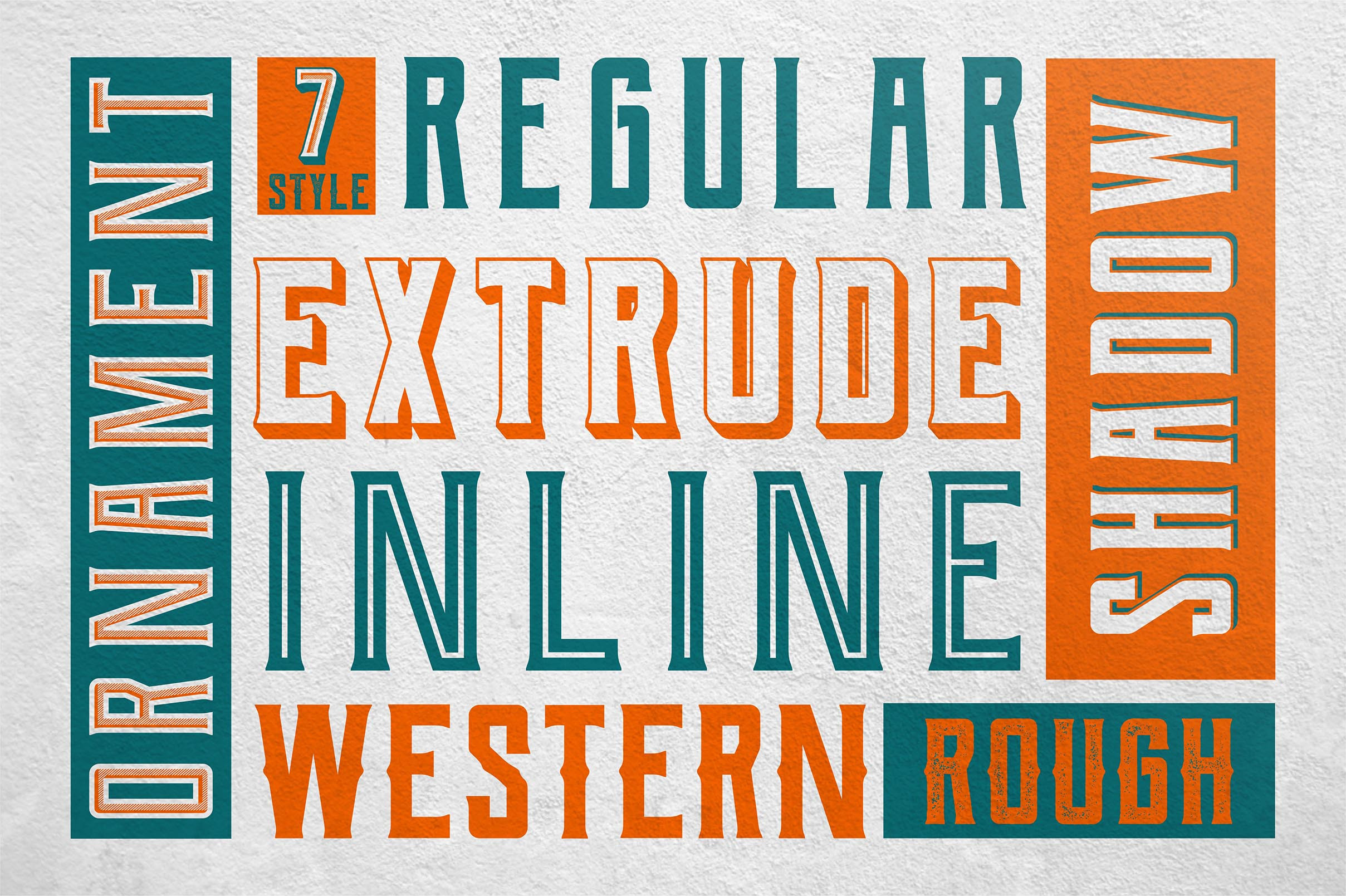
Berg layered font (7 Font)
Berg is the layered font family. Inspired by vintage sign painting, poster and label that have a strong shapes so it will create more attention for people to look more closely.
Berg comes with 7 font family (Regular, Extrude, Inline, Shadow, Ornament, Western & Rough) includes a full set of capital and lowercase letters, as well as multi-lingual support, currency figures, numerals, and punctuation.You can combine this berg family font to be many different style layered.